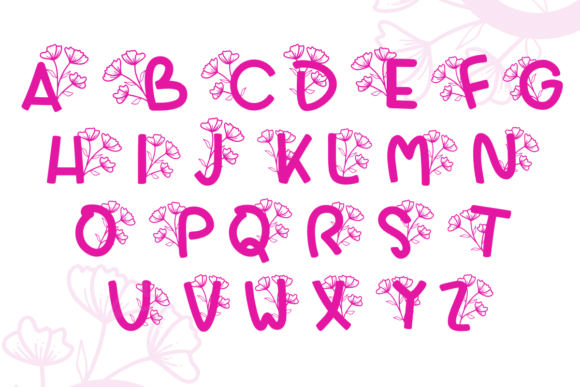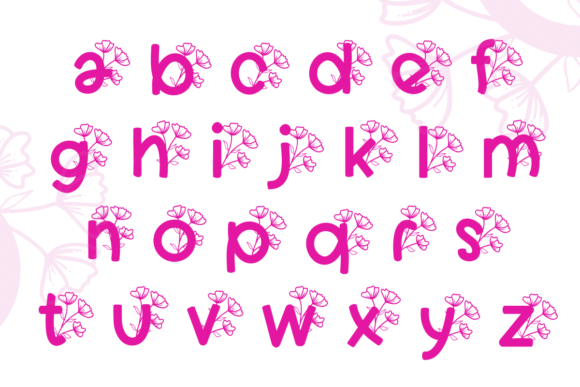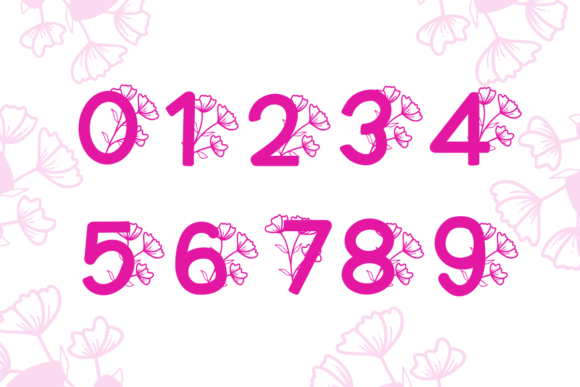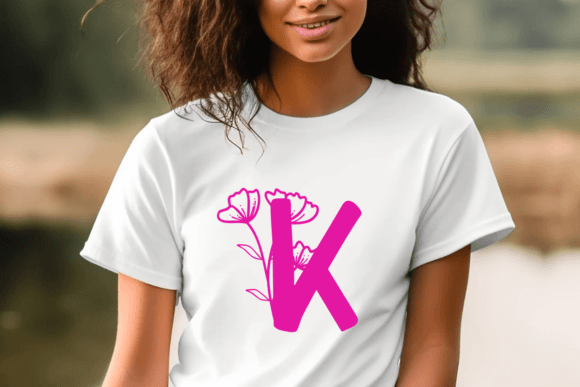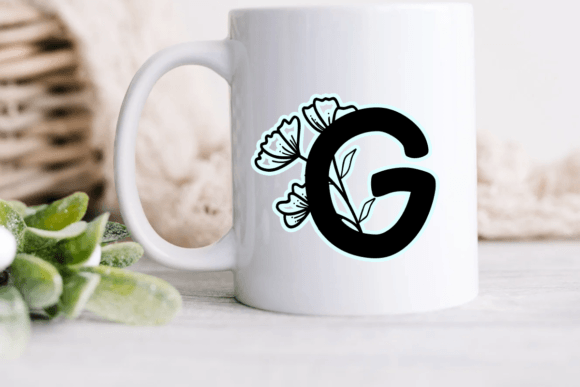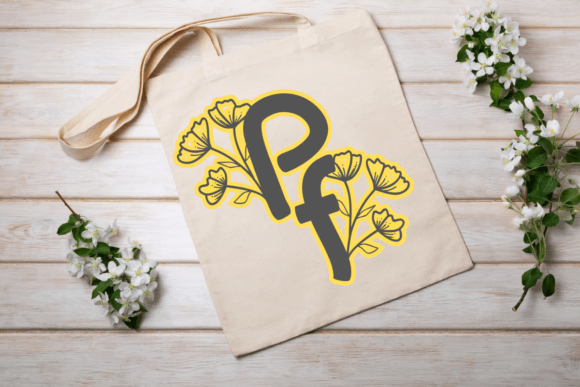
The Sweet Charm of Carnation Font: A Designer’s Delight
I still remember the time I was working on a greeting card project for a client’s birthday. I had all the design elements ready, but I was stuck on finding the perfect font. The card needed to be playful, yet elegant, and I wanted it to scream ‘happy birthday’ without being too over-the-top. That’s when I stumbled upon the Carnation font, and it instantly won my heart! 💕
Carnation is a cute decorative font that’s perfect for taking notes, writing a diary, or making greeting cards. However, its versatility doesn’t stop there. You can use it for various designs, such as banners, content, mugs, cards, shirts, stationery, social media posts, and more!
- Adorable and playful design that’s perfect for creative projects
- Works well for both digital and print designs
- Easily pairs with other fonts to create a unique style
- Includes OpenType features, glyphs, and stylistic alternates for added creativity
- May not be suitable for very formal or professional designs 🤔
- Some characters may appear a bit condensed, affecting readability at small sizes
The Story Behind Carnation Font: A Designer Inspiration
Carnation font was designed with the intention of creating a beautiful, yet playful font that’s perfect for creative projects. The designer aimed to create a font that’s both elegant and fun, making it suitable for a wide range of designs, from greeting cards to social media posts.
Q: What type of designs is Carnation font best suited for?
A: Carnation font is perfect for creative projects, such as greeting cards, social media posts, banners, and more!
Q: Is Carnation font suitable for body text?
A: While Carnation font is beautiful, it’s recommended to use it for headings or titles rather than body text, as it may be a bit challenging to read at smaller sizes.